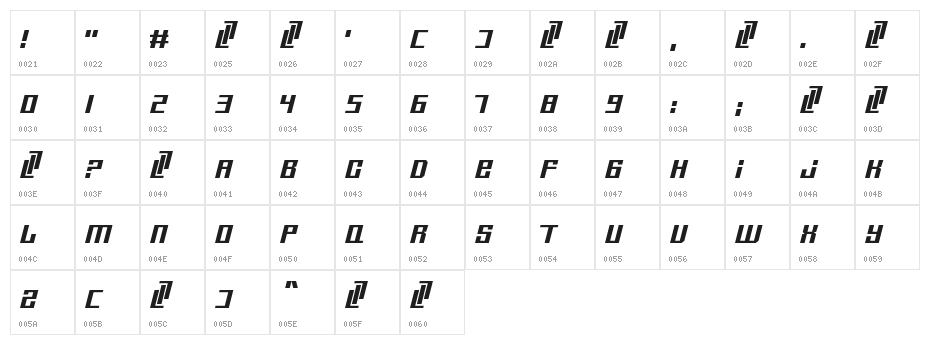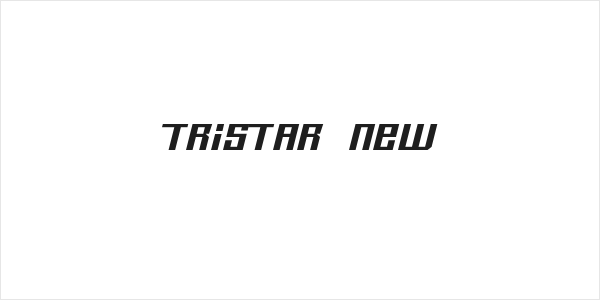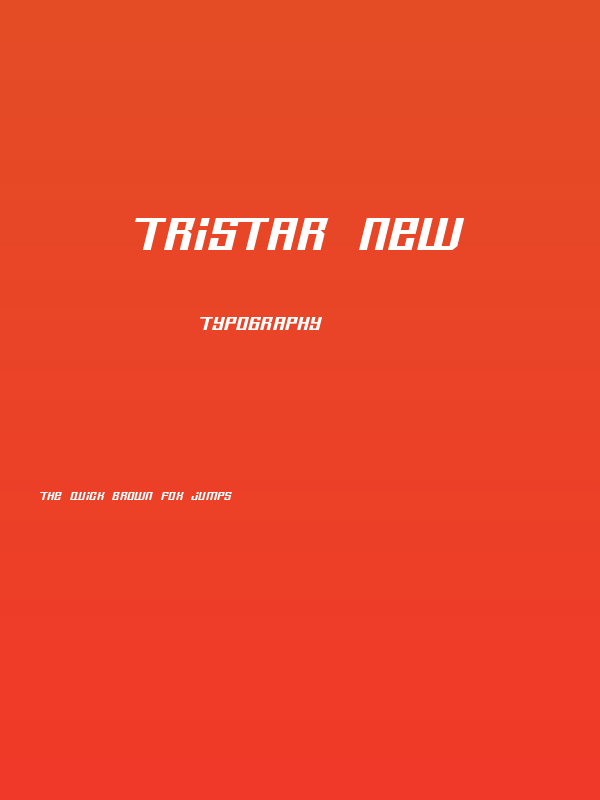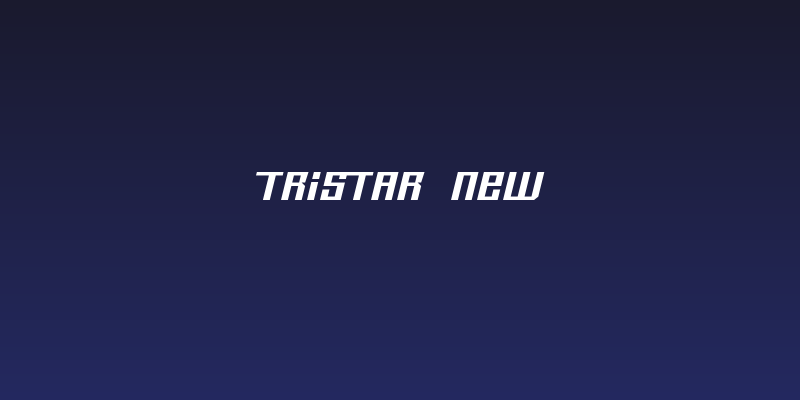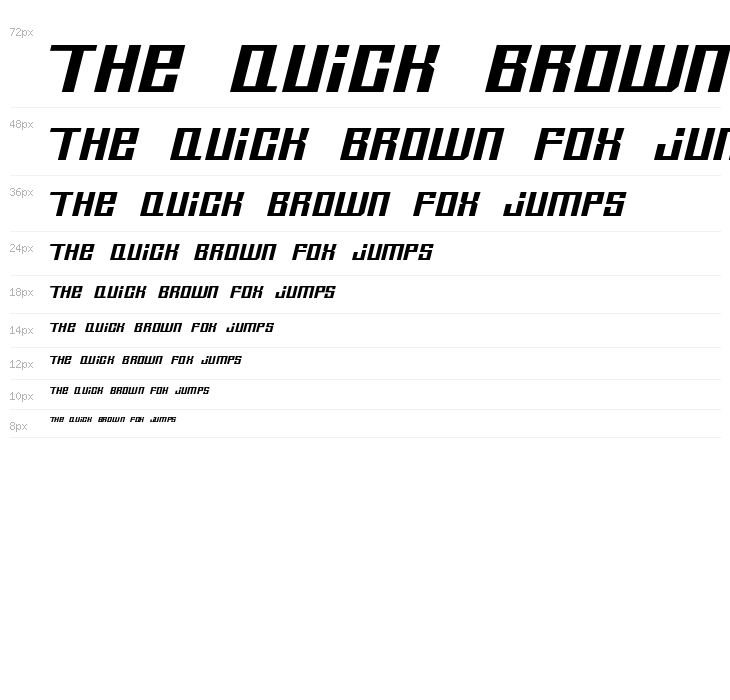
Tristar New Font
Tristar New Description
This font features a bold and angular design with a futuristic and dynamic appearance. The characters are slightly slanted, giving a sense of motion and energy. The uppercase letters are uniform in height, while the lowercase letters maintain a consistent style, enhancing readability. The numbers are distinct and align well with the overall geometric theme. Special characters are creatively integrated, maintaining the font's edgy and modern aesthetic. This font is ideal for projects that require a strong, impactful visual presence.
| Proposed Projects | Ideal for branding, sports team logos, video game titles, and sci-fi themed designs. |